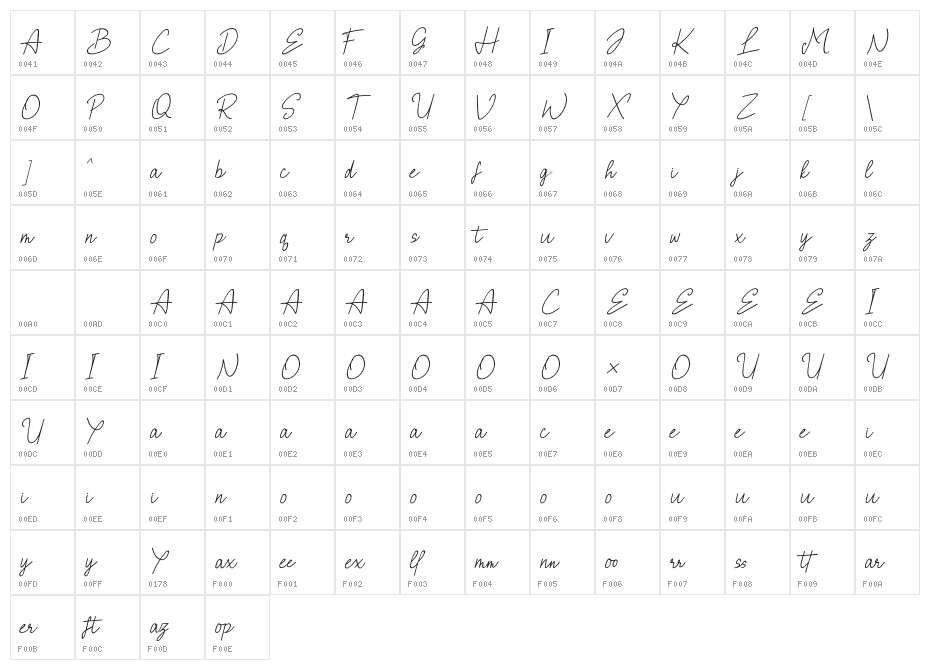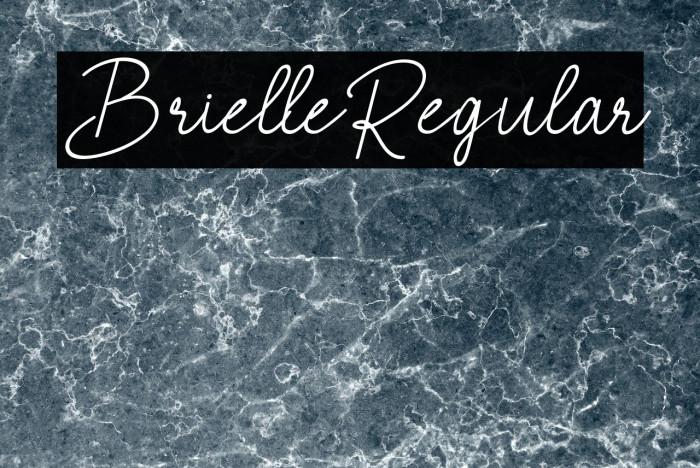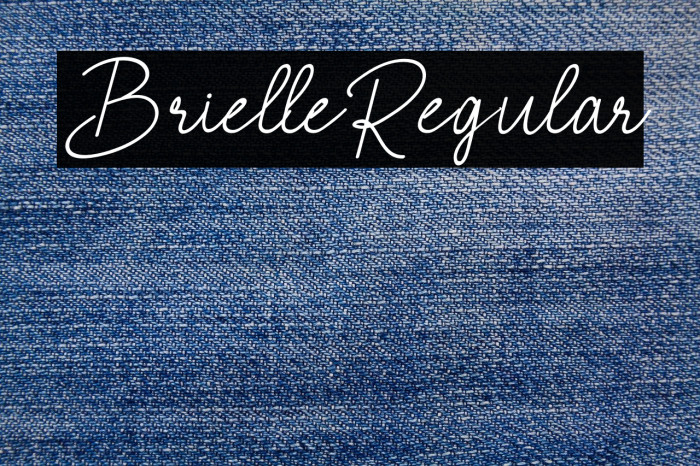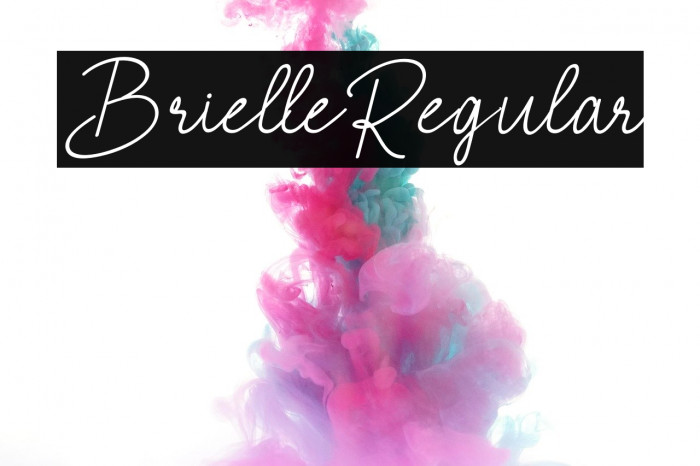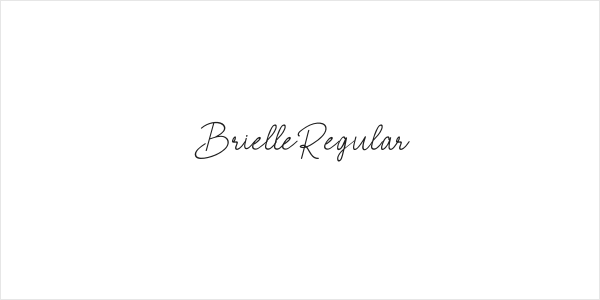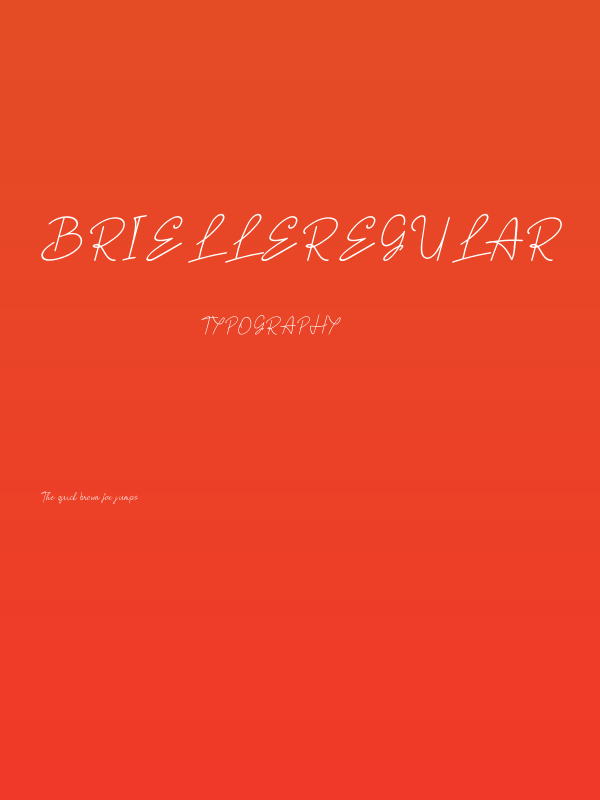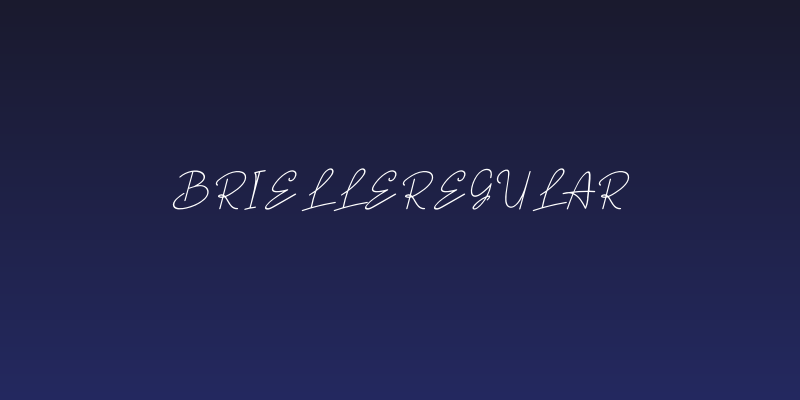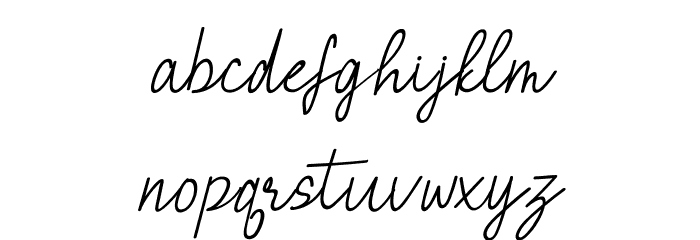
BrielleRegular Font
BrielleRegular Description
This font exudes a sense of elegance and fluidity, characterized by its cursive, handwritten style. The uppercase letters are tall and slender, with a slight slant that adds a dynamic feel. The lowercase letters maintain a consistent flow, with smooth curves and connections that mimic natural handwriting. The overall appearance is both sophisticated and approachable, making it suitable for a variety of creative applications. The absence of special characters in the image suggests a focus on alphabetic expression, enhancing its use in personalized and artistic projects.
| Overall Style | Elegant, Artistic |
| Use Case | Logos, Invitations, Artistic Text |
| Proposed Projects | Ideal for wedding invitations, personal branding, greeting cards, and artistic projects. |